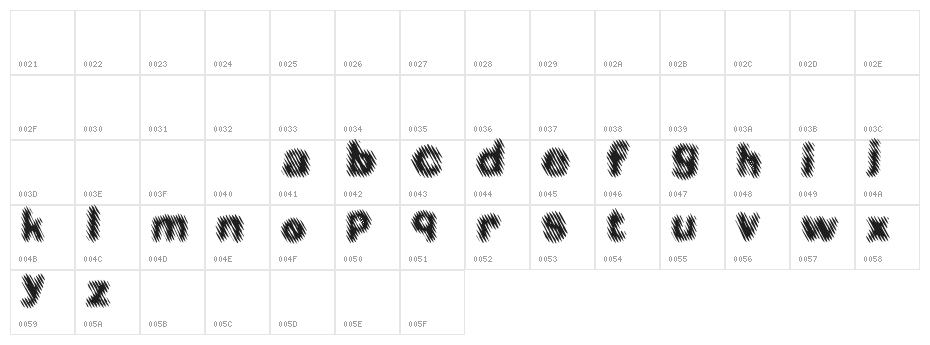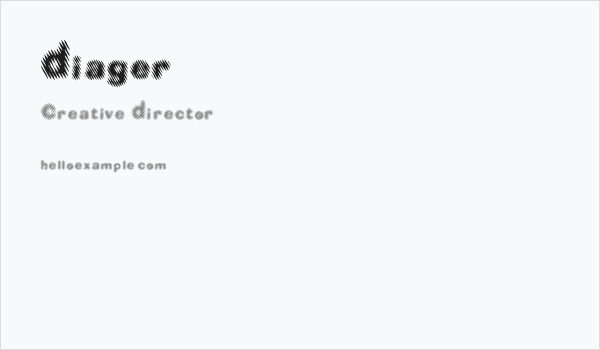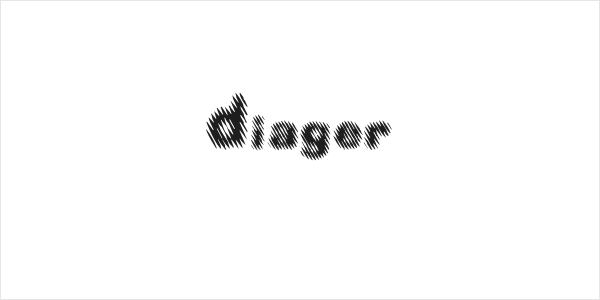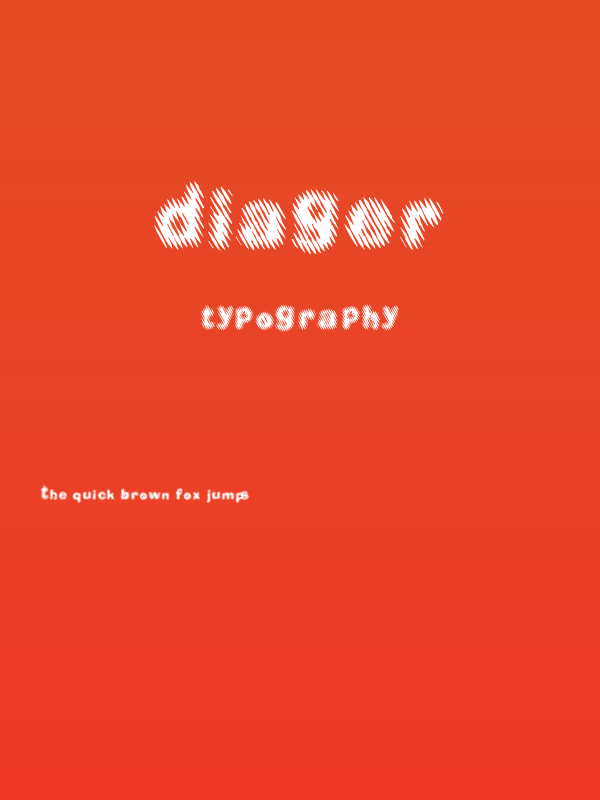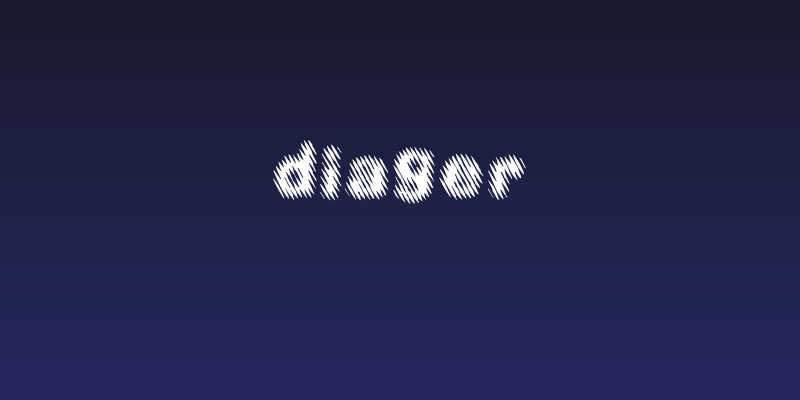
Diager Font
Diager Description
This font features a bold, decorative style with a unique diagonal line pattern filling each character, creating a dynamic and textured appearance. The letters are rounded and slightly condensed, giving them a compact yet impactful look. The consistent diagonal lines add a sense of movement and energy, making it stand out in any design. The uppercase and lowercase letters maintain a uniform style, ensuring readability while still being visually striking. This font is particularly suitable for creative projects where a bold statement is needed.
| Proposed Projects | Ideal for posters, album covers, branding materials, and any design requiring a bold, artistic touch. |